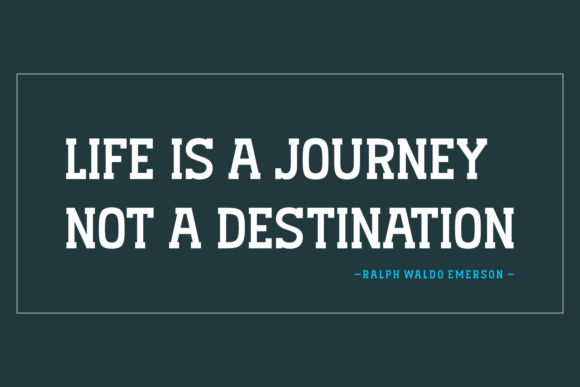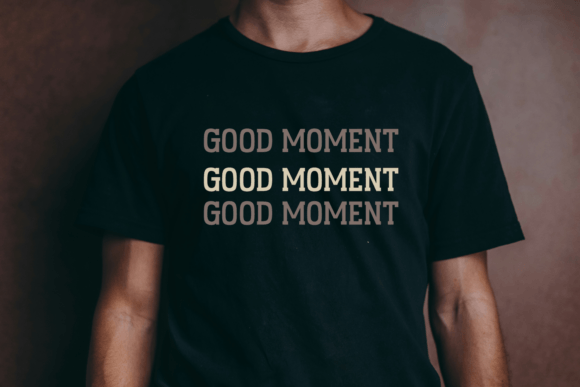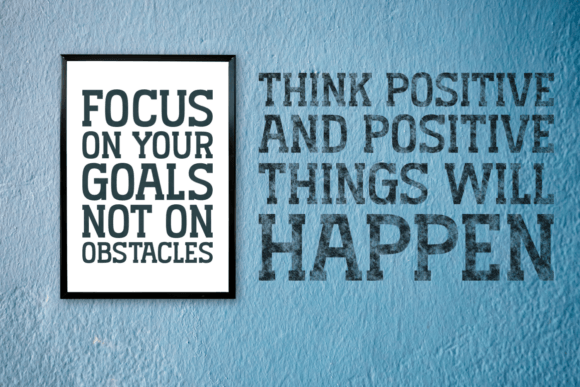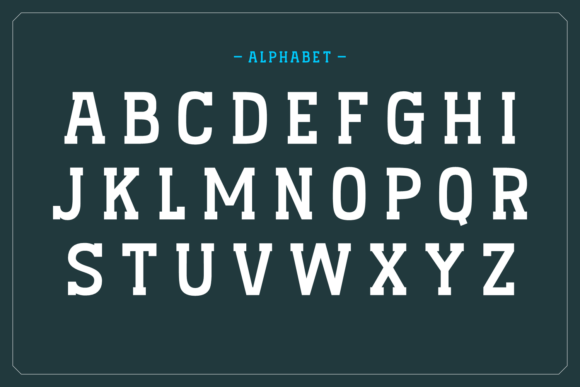
Introduction to Positive Struggle Font
Positive Struggle is a dynamic Slab Serif Font.
It’s the perfect blend of classic and modern styles with a lean, streamlined form that exudes sophistication Known as a vibrant Crafts Font, Positive Struggle is an excellent choice for Summer designs and Trendy Typography.
Key Features of Positive Struggle Font